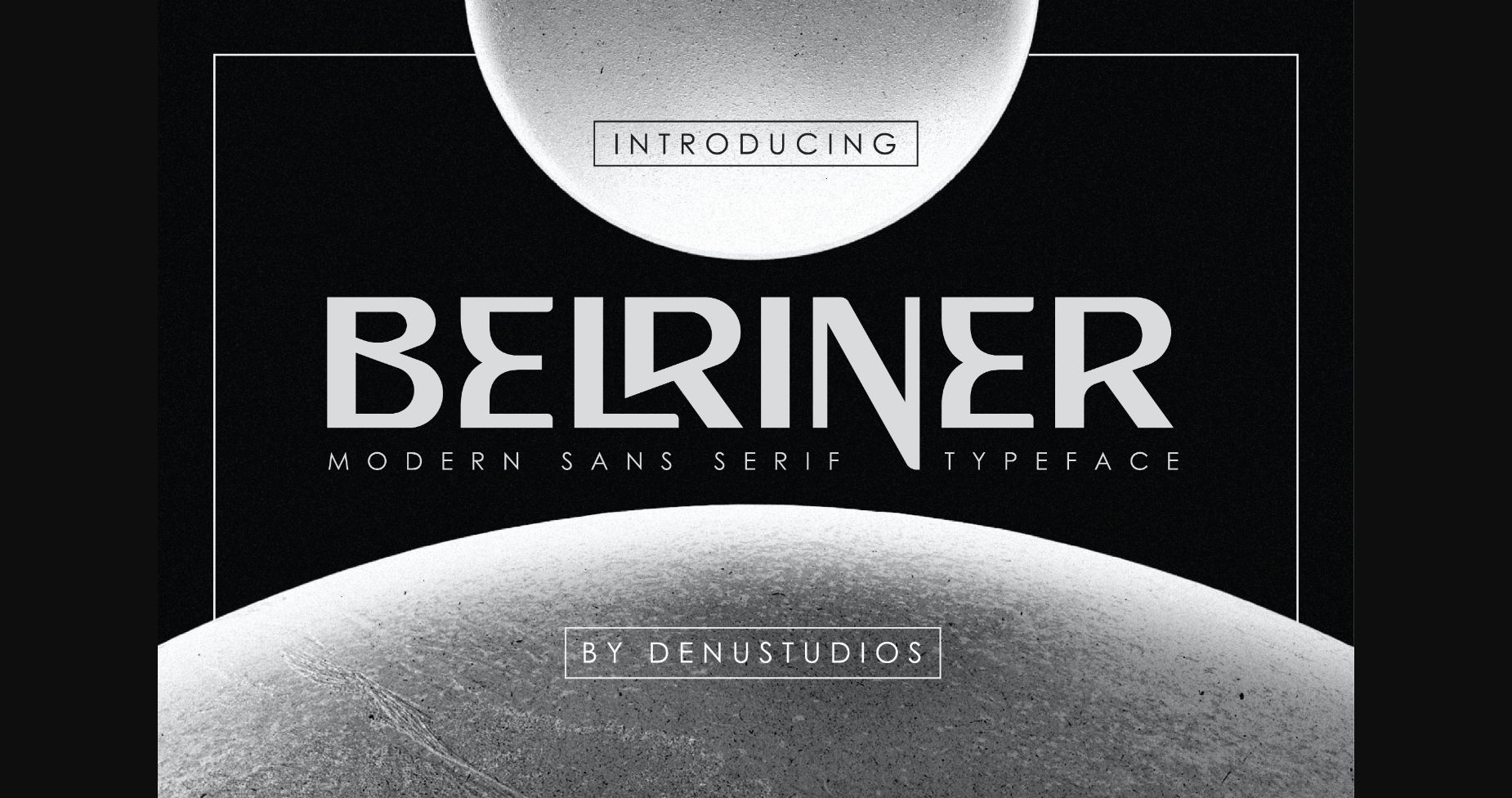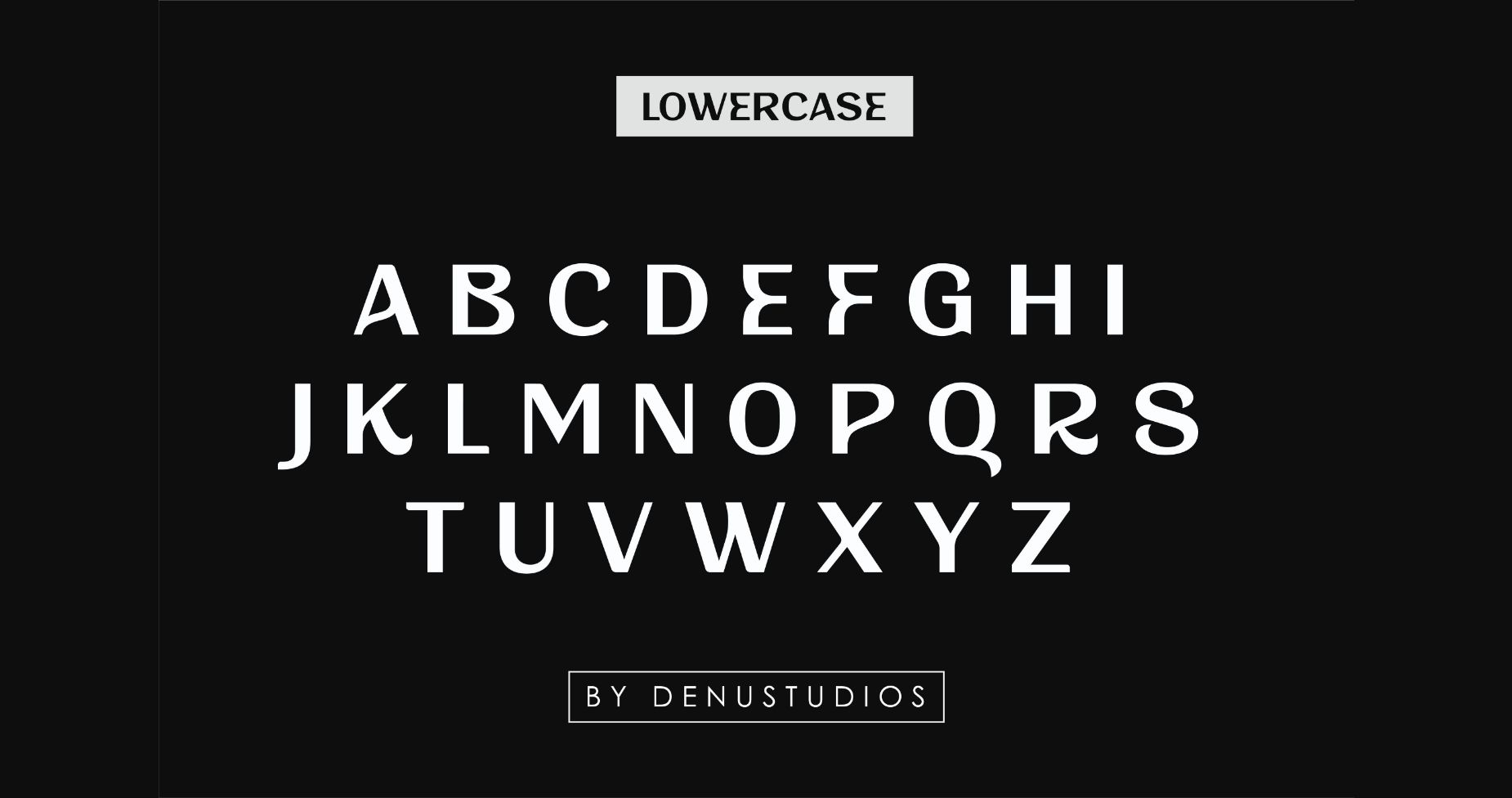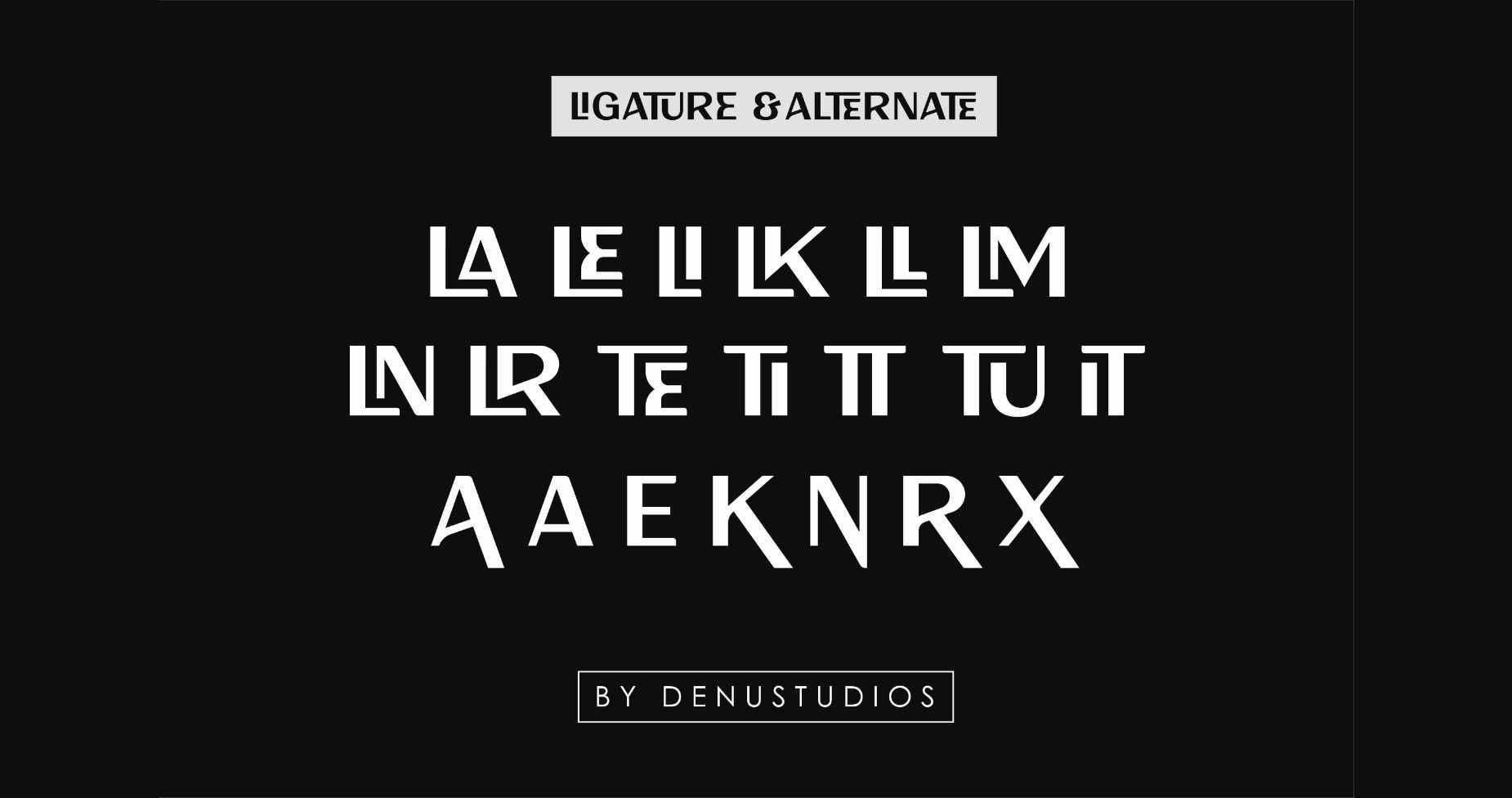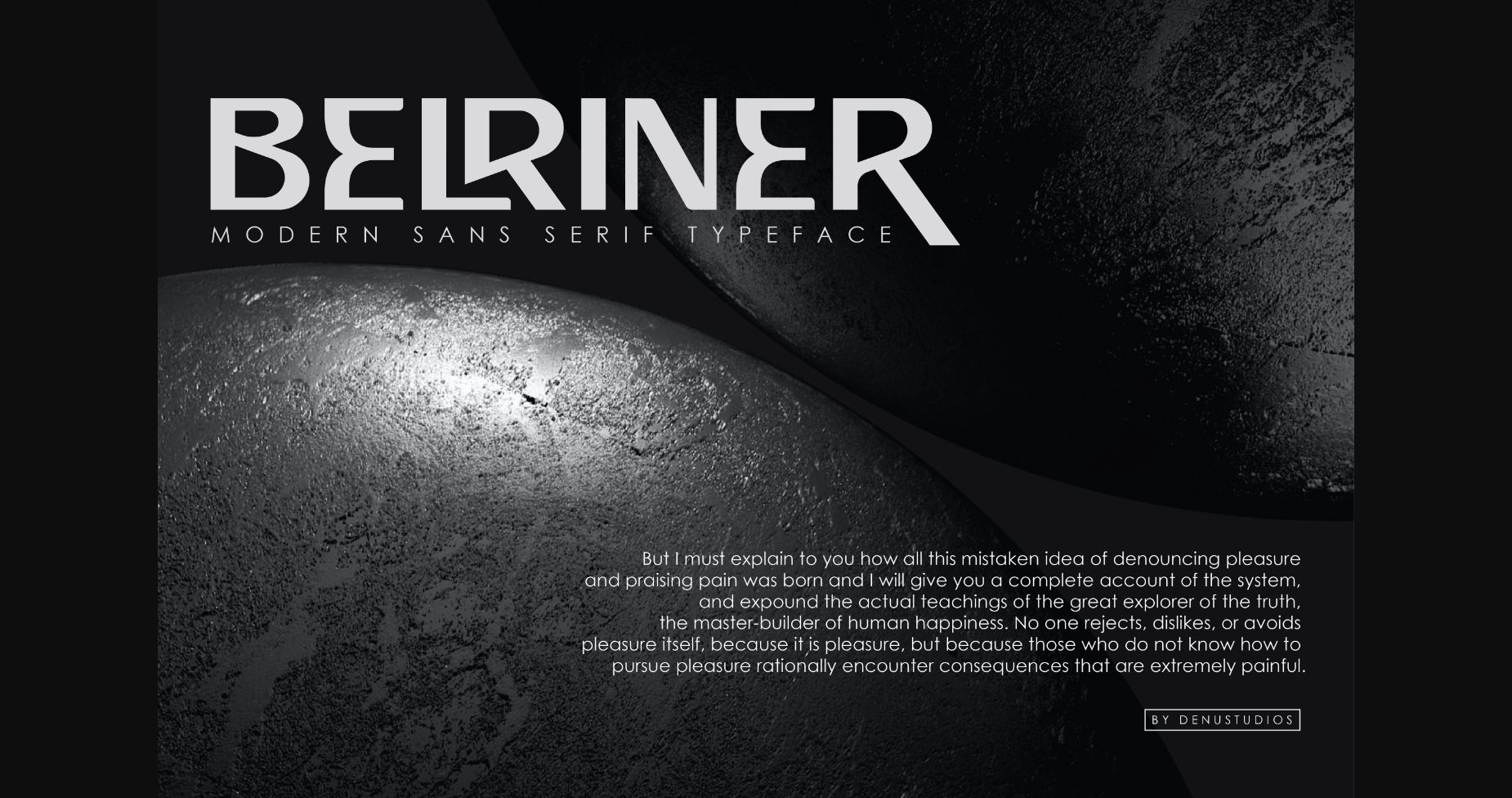
About Belriner Font
Proudly present Berliner a serif modern and classic typeface that has its own unique style & modern look. This typeface is perfect for an elegant & luxury logo, book or movie title design, fashion brand, magazine, clothes, lettering, quotes, and so much more.